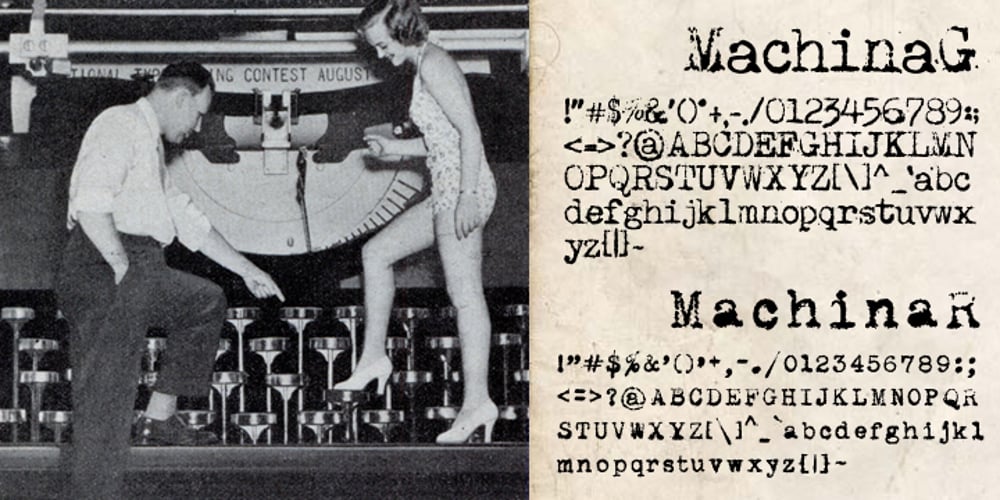
Machina
Machina font
Machina Font Family was designed by Bartek Nowak and published by GRIN3 (Nowak). Machina contains 2 styles and family package options. The Machina font family consists of two typewriter fonts: MachinaR and MachinaG. Language support includes Western, Central and Eastern European character sets, as well as Baltic and Turkish languages.